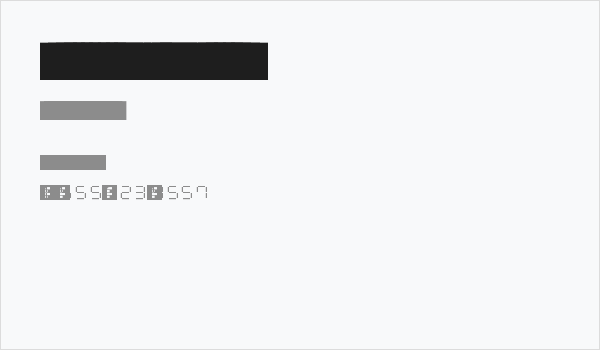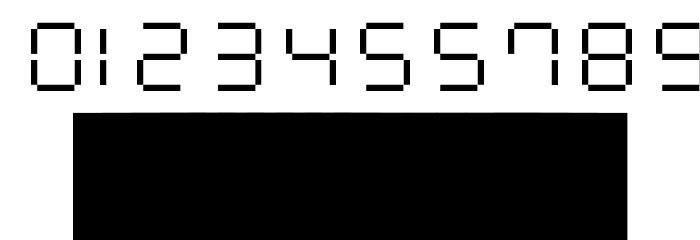
Calculator LCDs Regular Font
This font is reminiscent of classic digital displays, often seen on calculators and digital clocks. It features a segmented design that mimics the appearance of LCD screens, with each character composed of straight lines and right angles. The font is monospaced, ensuring uniformity in character width, which enhances readability in digital contexts. Its minimalist and geometric style gives it a distinctly modern and technological feel, making it ideal for applications that require a digital or retro aesthetic.
| Use Case | Digital displays, tech branding, retro designs. |
| Proposed Projects | Ideal for digital interfaces, retro-themed designs, tech-related branding, and any project requiring a digital or futuristic look. |